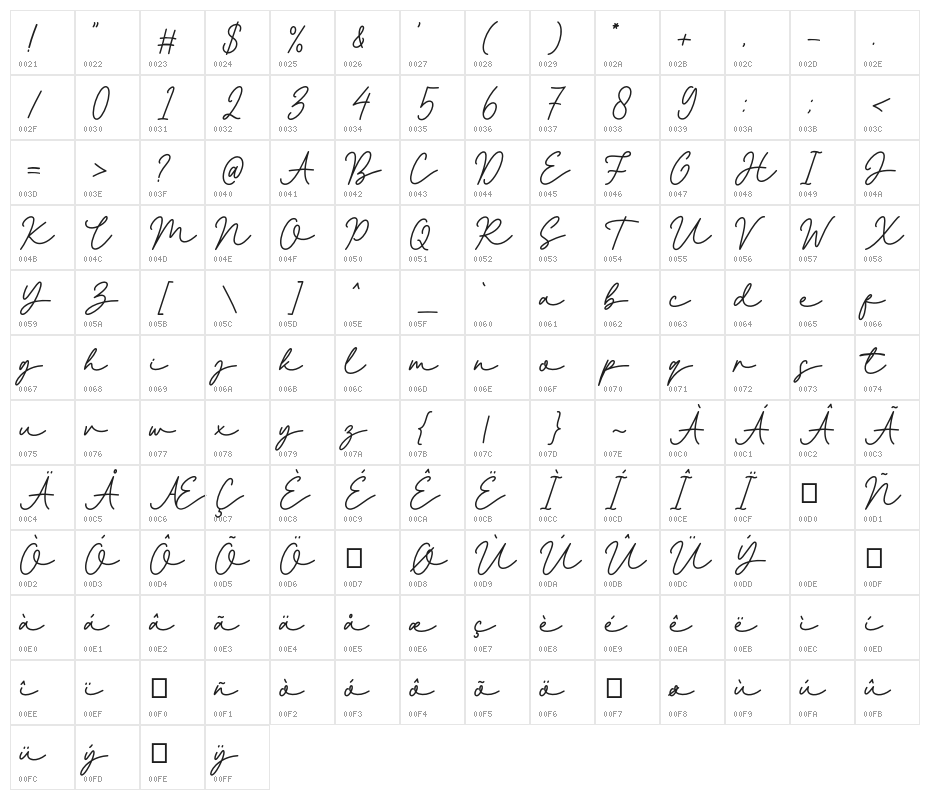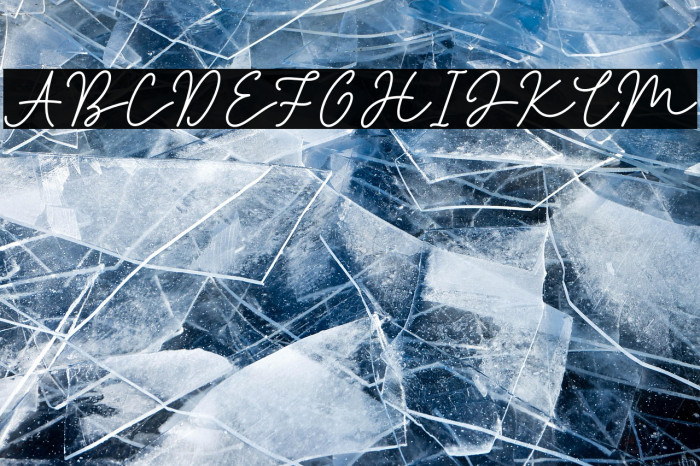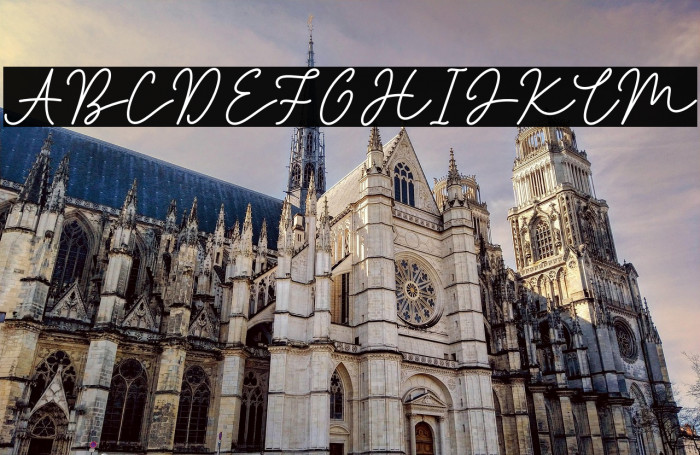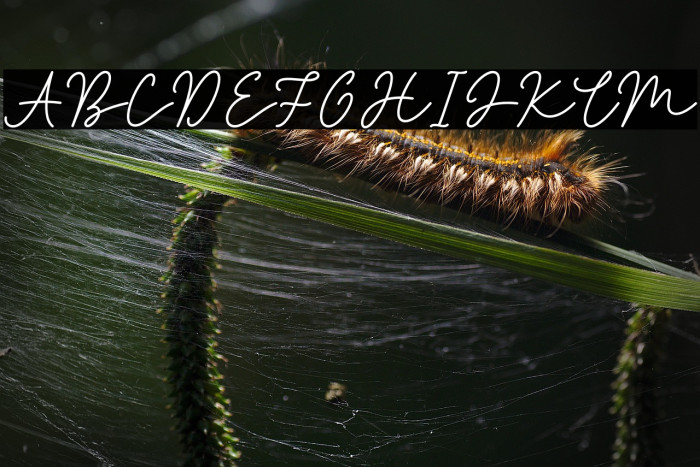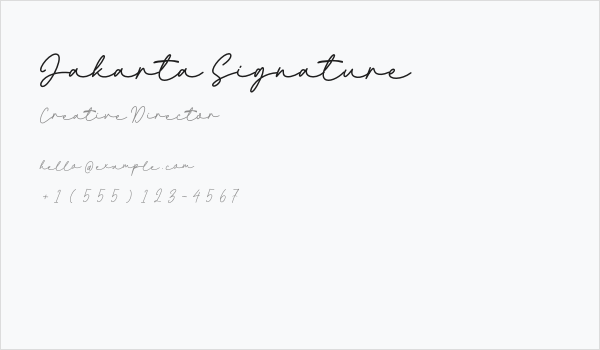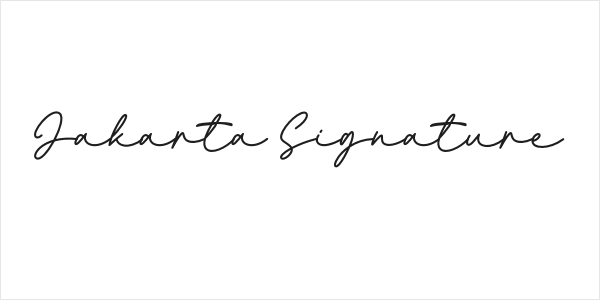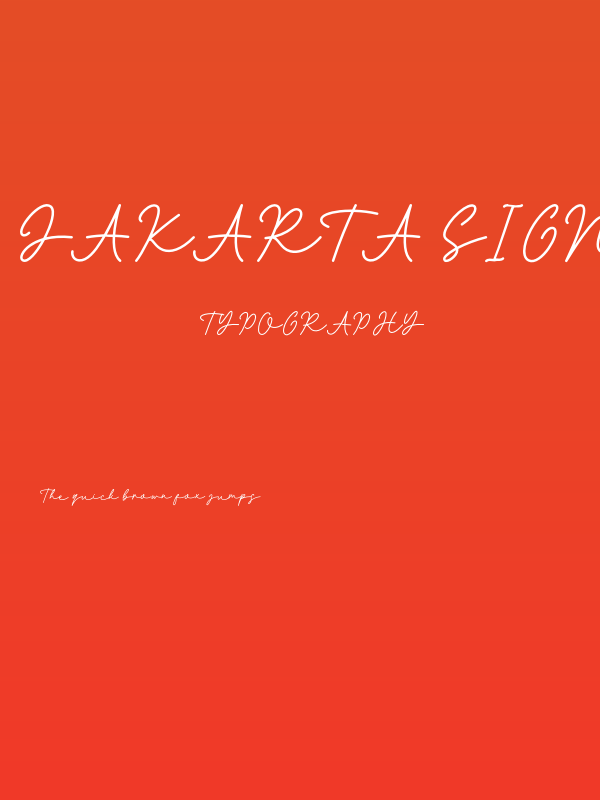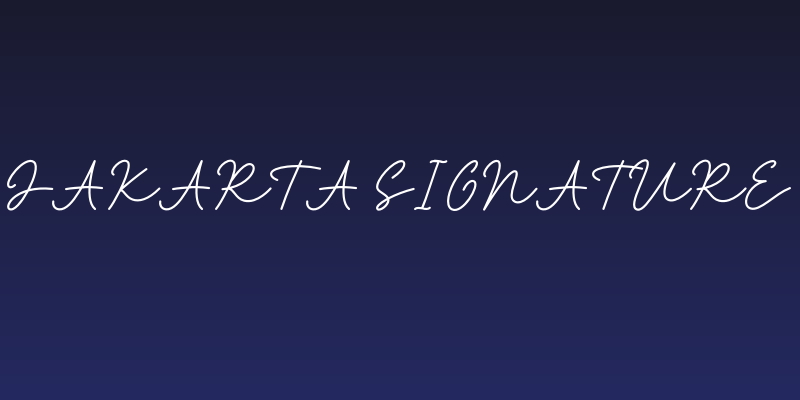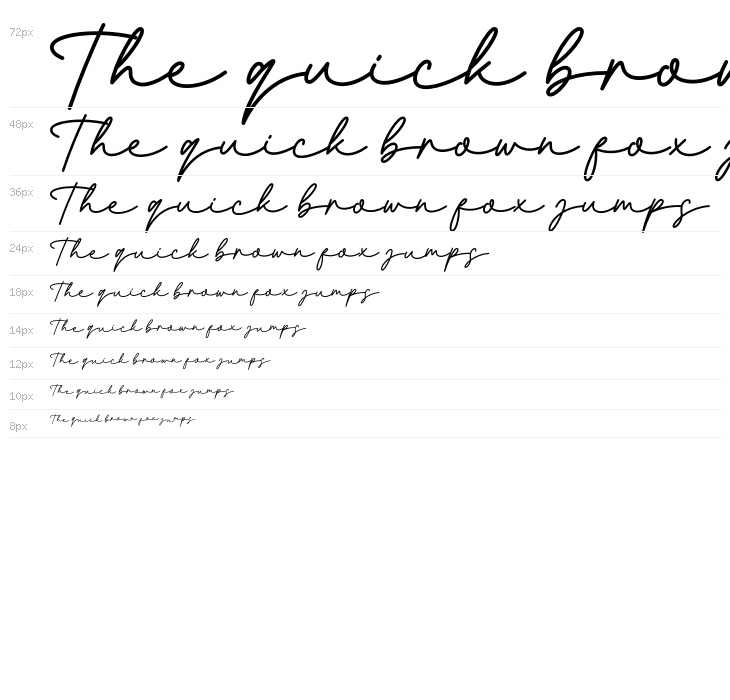
Jakarta Signature Font
Jakarta Signature Description
This font features an elegant and flowing script style that mimics natural handwriting. The characters are connected with smooth, fluid strokes, giving it a sophisticated and personal touch. The uppercase letters are slightly larger and more ornate, while the lowercase letters maintain a consistent and harmonious flow. The numerals and special characters are designed to match the overall aesthetic, ensuring a cohesive look across all text. This font is perfect for adding a touch of elegance and personality to any project.
Overall StyleElegant, Handwritten
Use CaseLogos, Invitations, Personal Branding
Proposed ProjectsIdeal for wedding invitations, personal branding, greeting cards, and elegant logos.